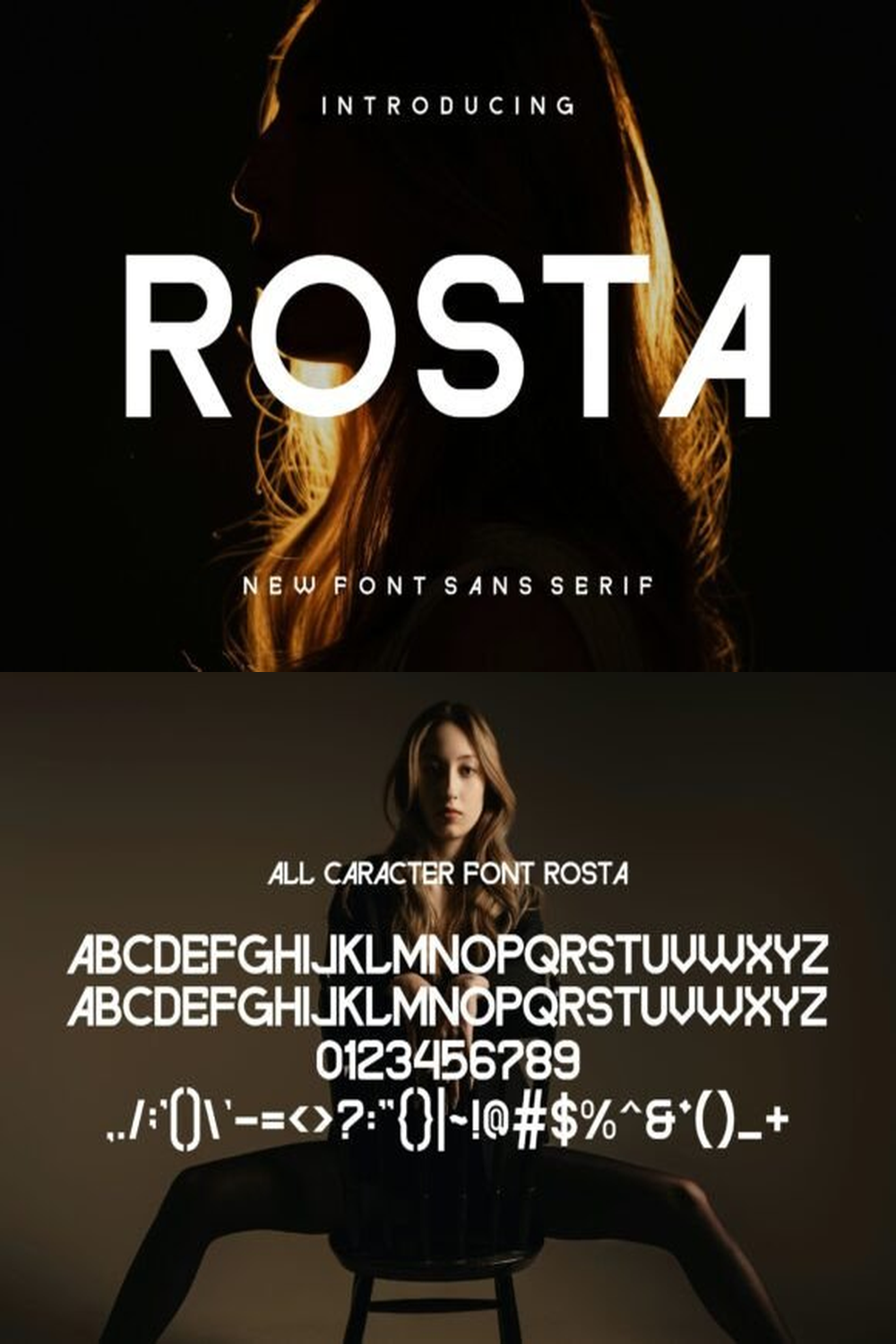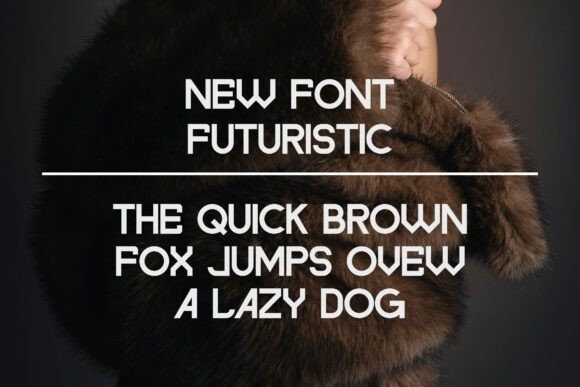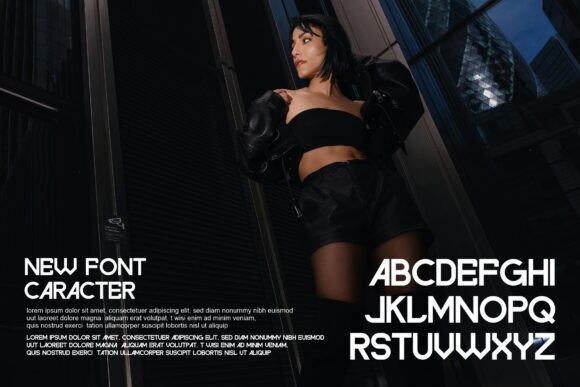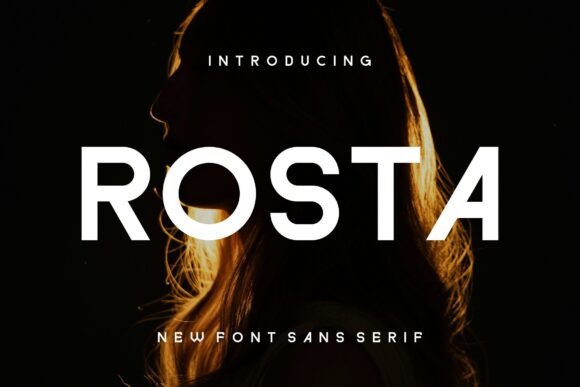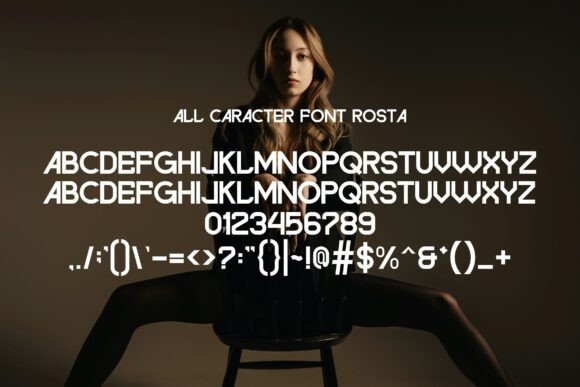
Rosta Font
About the Rosta Font
Presenting Rosta Font, a unique and stylish typeface that will make your work stand out. Rosta is a sans serif with a charming touch of style, this font also looks interesting because I added several alternative features that you can use. Don’t forget to add an extrude style in it to make it look more attractive for the design. For you, this font is suitable for those of you who want a design that displays an interesting side but is still relevant for a charming modern look. There’s nothing wrong if you feel all the experience of using this font in your designs, make this font one of the font collections on your compute